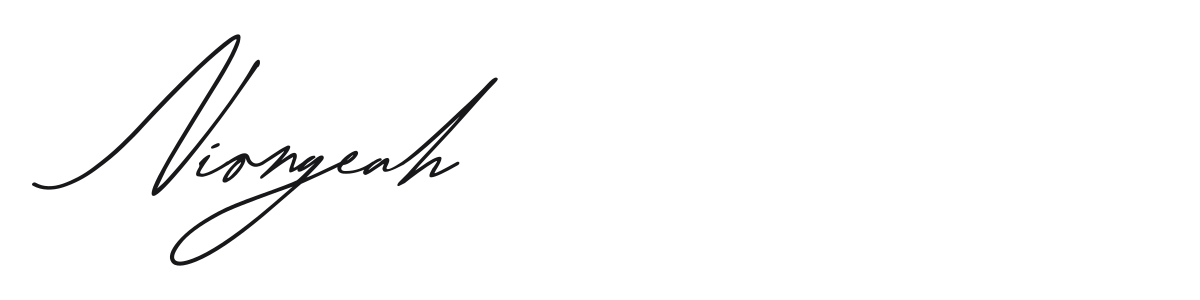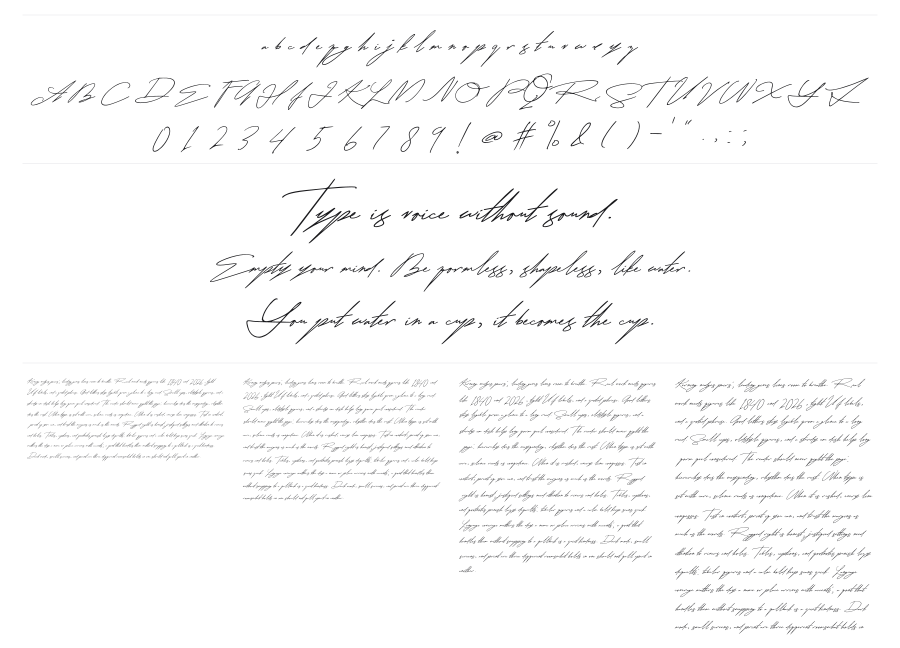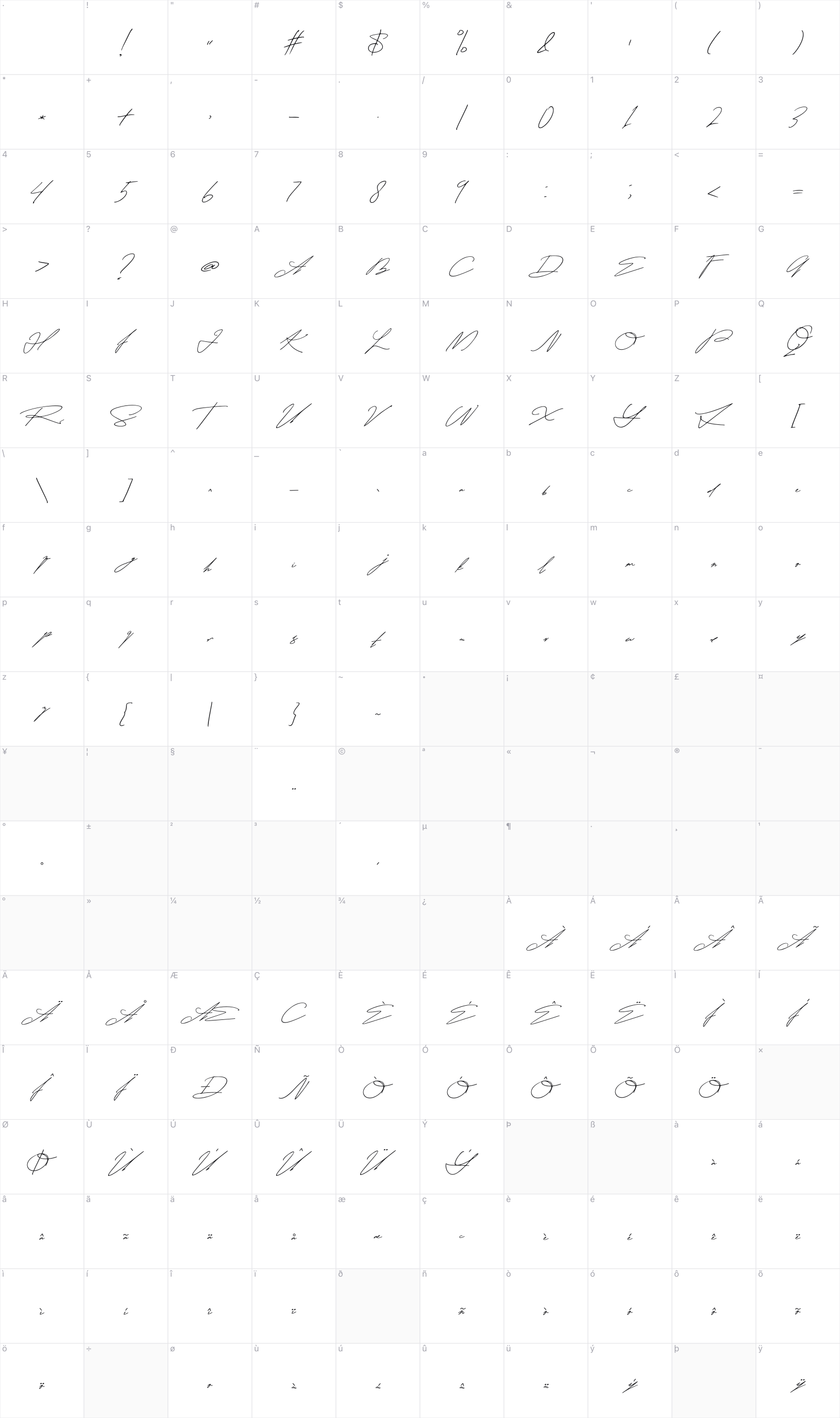
Niongeah
Niongeah is a flowing signature-style script with long, looping strokes and near-hairline weight throughout. Its naturalistic cursive rhythm feels like ink pulled fast across paper, with dramatic horizontal extenders that give lines real presence. Best used large, where the full sweep of each stroke reads clearly.